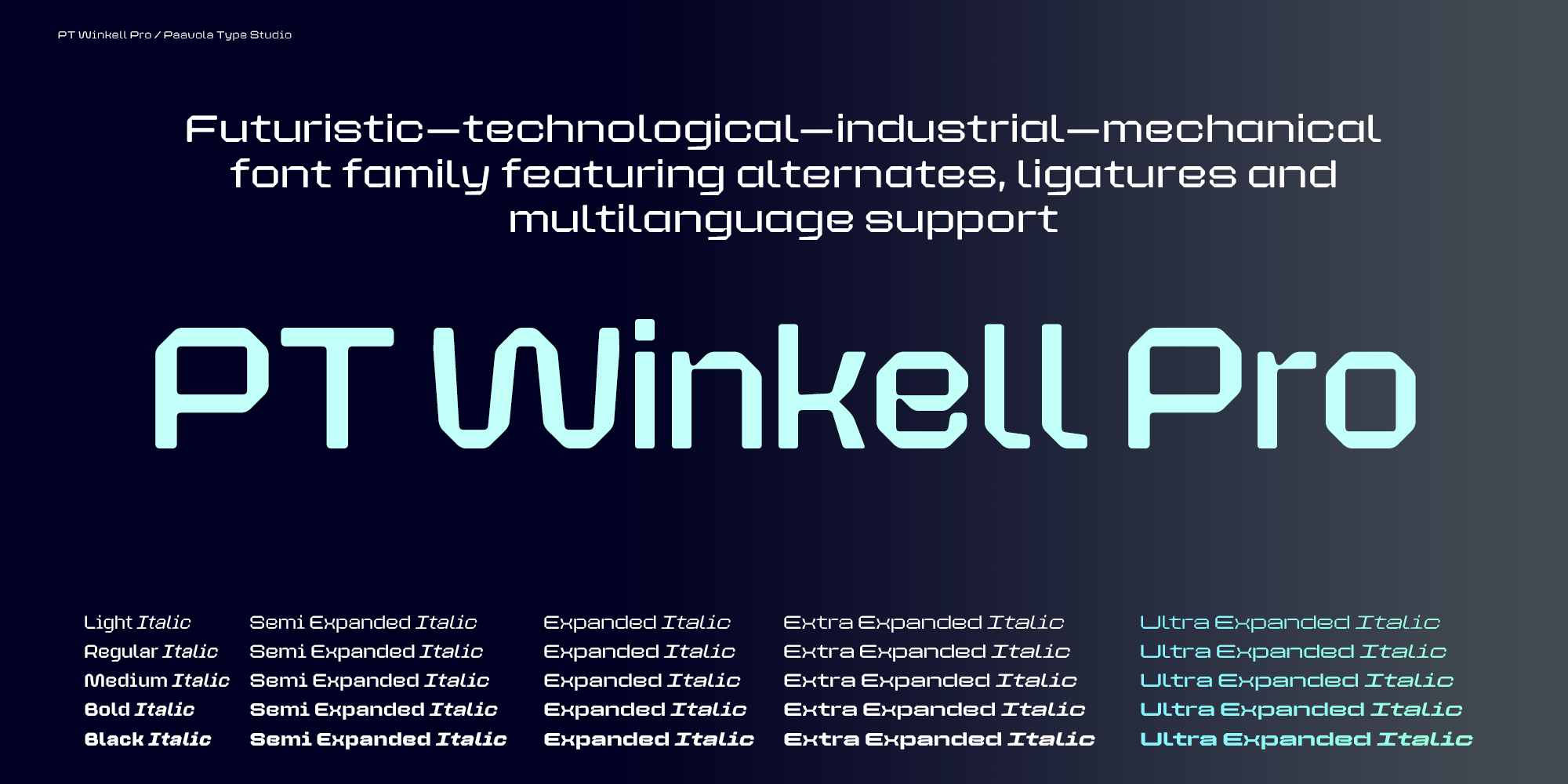
PT Winkell Pro Font is a sleek and exceptionally versatile sans-serif typeface, perfectly suited for projects that demand modern professionalism and outstanding readability. Imagine it forming the core typography for sophisticated corporate branding, providing clear and inviting text for complex data visualizations, or enhancing the user experience on a cutting-edge tech platform. It's also an excellent choice for crafting impactful magazine layouts, designing effective and minimalist signage systems, or bringing a reliable and structured presence to extensive digital documents and e-books. If you're looking for a font that combines clean aesthetics with unparalleled functional clarity, PT Winkell Pro Font is an outstanding selection.
What makes PT Winkell Pro Font so exciting? It’s its meticulous design, balancing geometric precision with subtly humanist touches, making it incredibly adaptable for a wide array of applications. This font boasts expertly crafted letterforms and optimized spacing that ensure exceptional legibility across various sizes and mediums, from crisp digital displays to printed materials. Its clean lines, neutral yet inviting character, and professional appearance allow it to integrate seamlessly into diverse design ecosystems, supporting content without distraction. Designers will appreciate its understated elegance and its ability to lend an air of sophistication and modernity to any project, making it a highly dependable choice for achieving a polished and professional outcome.
The PT Winkell Pro Font family is typically designed with a comprehensive range of weights and styles to provide maximum flexibility for designers, often boasting an extensive character set. You can generally expect to find numerous variations such as Thin, Light, Regular, Medium, SemiBold, Bold, ExtraBold, and Black, accompanied by matching italic versions for each. This extensive family ensures that PT Winkell Pro Font can be used to create sophisticated typographic hierarchies, maintain consistent branding across diverse mediums, and offer flexible design solutions for both print and digital environments. Discover the unwavering clarity and contemporary style of PT Winkell Pro Font Free Download for your next design endeavor.